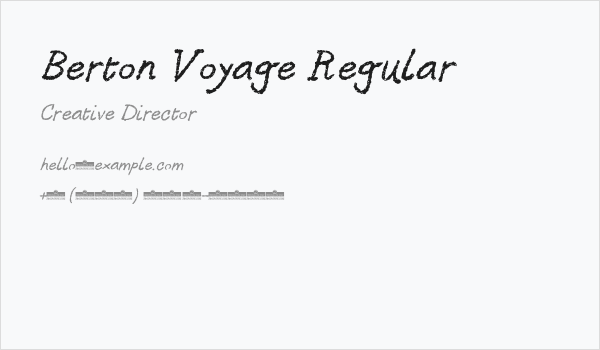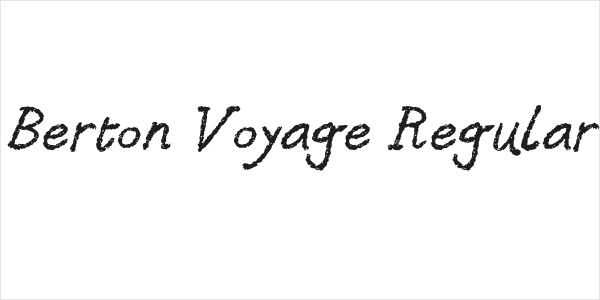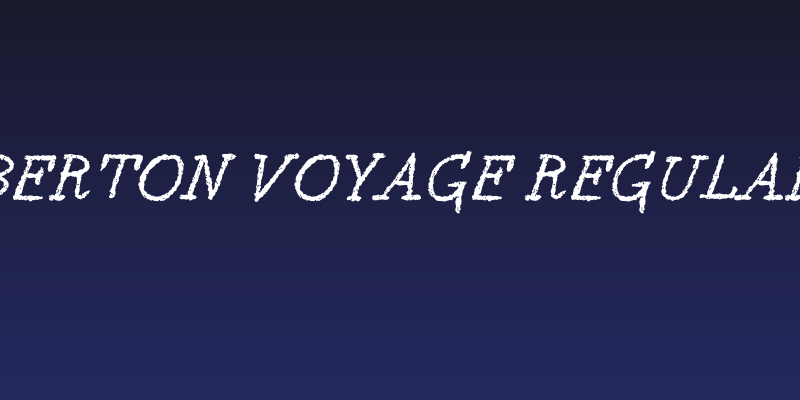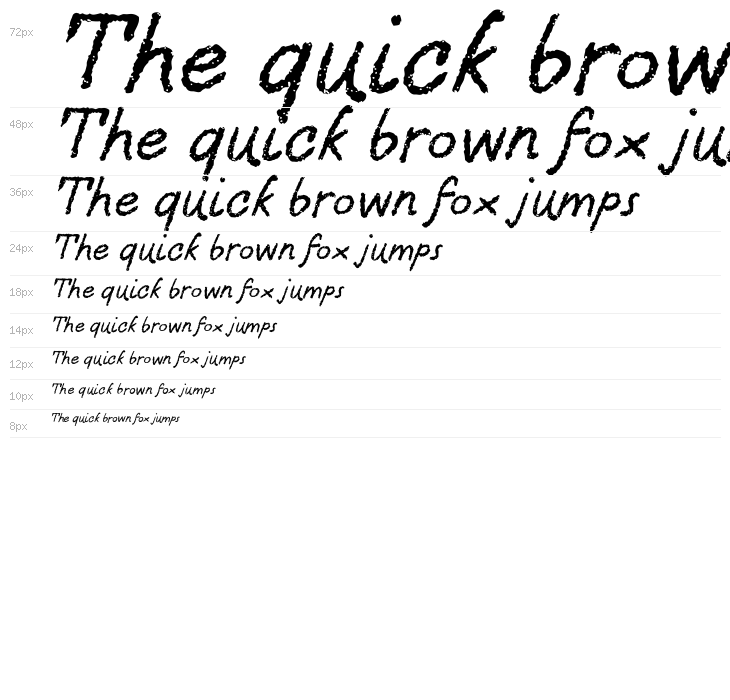
Berton Voyage Regular Font
Berton Voyage Regular Description
This font features a distinctive handwritten style with a textured, slightly rough appearance that adds a sense of authenticity and character. The letters are slanted, giving it an italicized look, and the strokes vary in thickness, creating a dynamic and lively feel. The uppercase and lowercase letters maintain a consistent style, with a playful yet elegant touch. The numerals and special characters are designed to match the overall aesthetic, ensuring a cohesive look across all text elements. This font's unique texture and style make it stand out, perfect for projects that require a personal, handcrafted touch.
Use CaseLogos, Invitations, Greeting Cards
Proposed ProjectsIdeal for greeting cards, invitations, branding projects, and any design requiring a personal touch.